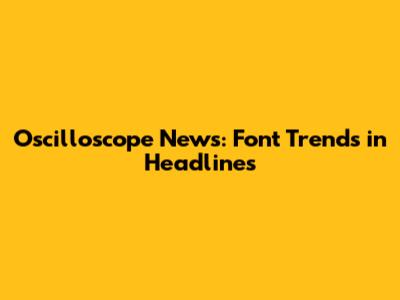
What's the deal with oscilloscope news and their headline fonts, guys? It might seem like a small detail, but the font choices in news headlines can actually make a huge difference in how information is perceived. Think about it – a bold, blocky font screams urgency and importance, while a more elegant, serif font might convey a sense of tradition and reliability. For oscilloscopes, which are technical instruments often discussed in serious scientific or engineering contexts, the font selection is crucial for establishing the right tone. It's not just about looking good; it's about communicating effectively. When you're scanning through headlines, the font is one of the first things your brain registers, subconsciously influencing your perception before you even read the words. This is why major news outlets invest a lot of time and resources into choosing fonts that align with their brand identity and the type of news they deliver. For oscilloscopes, especially in technical publications or industry news, you'll often see fonts that are clean, legible, and convey a sense of precision. We're talking about fonts that don't distract from the core message but rather enhance its impact. It's a subtle art, for sure, but one that plays a significant role in the overall effectiveness of any headline, including those related to the fascinating world of oscilloscopes. Keep an eye out next time you're reading, and you'll start to notice the patterns and the power of a well-chosen font!
The Psychology Behind Headline Fonts
Let's dive deeper into the psychology of why headline fonts matter so much, especially for topics like oscilloscope news. It’s all about how our brains process visual information. Fonts aren't just letters; they're shapes and forms that carry inherent emotional weight and associations. For instance, sans-serif fonts, those without the little decorative strokes (serifs) at the ends of letters, like Arial or Helvetica, are often perceived as modern, clean, and direct. They are fantastic for headlines that need to be read quickly and convey straightforward information, which is often the case with technical news about oscilloscopes. You want clarity, right? You don't want readers squinting or getting confused. On the other hand, serif fonts, like Times New Roman or Georgia, have those little feet and decorative elements. These tend to feel more traditional, authoritative, and sometimes even a bit more sophisticated. While less common for breaking news headlines about oscilloscopes, they might appear in more in-depth feature articles discussing the history or evolution of oscilloscope technology. Then there are display fonts, which are designed to be eye-catching and often have a lot of personality. These are rarely used for serious news unless it's a special feature or a more visually driven publication. The weight of a font – whether it's light, regular, bold, or black – also plays a massive role. Bold fonts scream 'read me!' and are excellent for grabbing attention in a crowded news feed. For oscilloscope news, a bold sans-serif font is often a winning combination, ensuring that crucial updates or announcements about new models, features, or industry trends don't get missed. It's like the font is shouting the headline's importance, making sure it cuts through the noise. So, next time you see a headline, pay attention to the font; it’s working hard to tell you something before you even start reading.
Common Font Styles in Technical News
When we talk about oscilloscope news headlines, we're usually looking at a specific set of font characteristics that prioritize clarity, readability, and a sense of technological advancement. Think about the typical reader of oscilloscope news – they're likely engineers, technicians, scientists, or students in related fields. These individuals value precision and efficiency. Therefore, the fonts used in headlines aimed at them need to reflect these qualities. You'll frequently see clean, geometric sans-serif fonts taking center stage. Fonts like Montserrat, Lato, Open Sans, or even industry-standard choices like Roboto are very popular. They offer excellent legibility across various screen sizes and resolutions, which is super important in today's digital-first news environment. The goal is to make the headline instantly understandable, even at a glance. Bold weights are almost a given for headlines, as they create visual hierarchy and draw the reader's eye. A headline that says "New High-Frequency Oscilloscope Launched" in a bold, clean font is far more impactful than the same words in a lighter, less assertive typeface. Sometimes, you might also see condensed versions of these sans-serif fonts. These are great for fitting more information into a limited headline space without sacrificing readability, which can be a lifesaver in tight layouts or on mobile devices. The overall aesthetic tends to be modern, functional, and unobtrusive. It’s about getting the information across clearly and professionally. It’s not about flashy or overly decorative fonts that might detract from the technical nature of the subject matter. The font itself becomes a part of the message, reinforcing the idea of accuracy and cutting-edge technology associated with oscilloscopes. So, when you’re browsing technical news sites, notice these subtle but powerful design choices in their headlines.
The Evolution of Headline Typography
It's fascinating to think about how headline typography, including for niche areas like oscilloscope news, has evolved over time, guys. Remember those old newspapers? Headlines were often set in very bold, sometimes even condensed, serif fonts. They had a certain gravitas, a feeling of authority and importance that was perfect for the printed page. As technology advanced and we moved into the digital age, particularly with the rise of the internet and mobile devices, the demands on typography changed dramatically. Readability on screens became paramount. This is where sans-serif fonts really started to shine. Their clean lines and lack of serifs make them much easier to render clearly on lower-resolution screens. Think about the early days of websites – many used very basic, system-default sans-serif fonts. Over time, as screen technology improved and web fonts became more sophisticated, designers had a much wider palette to play with. For technical news sites covering oscilloscopes, this shift meant embracing fonts that felt both modern and trustworthy. We saw a move away from overly decorative or complex fonts towards simpler, more functional designs that prioritize clear communication. The advent of responsive design also played a huge role. Headlines need to look good and be readable whether you're on a massive desktop monitor or a tiny smartphone screen. This necessitates fonts that scale well and maintain their integrity across different sizes and resolutions. Today, the trend is often towards minimalist design, and that extends to typography. Clean, well-spaced sans-serif fonts, often in bold weights, are the go-to for many news outlets, including those in specialized fields. The goal is to create a sleek, professional look that doesn't overwhelm the reader but instead guides their attention effectively to the most important information. It’s a constant dance between aesthetics, functionality, and the evolving ways we consume news, and it’s super interesting to watch unfold.
Factors Influencing Font Choice for Oscilloscope News
Several key factors influence the specific font choices you'll see in oscilloscope news headlines, and it's not just about picking something that looks cool, believe me. Firstly, Target Audience is huge. As we've touched on, the readers of oscilloscope news are typically professionals or students in technical fields. They appreciate clarity, precision, and efficiency. Fonts that are overly stylized, whimsical, or difficult to read quickly would be a mismatch. Therefore, clean, legible sans-serif fonts are almost always the default. Secondly, Platform and Medium matter a lot. Is the news appearing on a website, in a print magazine, or on a mobile app? Websites and apps demand highly readable fonts that render well on screens of all sizes. Print might allow for slightly more stylistic freedom, but legibility remains king. The need for responsive design in the digital realm strongly favors versatile sans-serifs that maintain their clarity whether they're large on a desktop or small on a phone. Thirdly, Brand Identity is critical for any publication. Does the news source want to project an image of being cutting-edge and innovative, or traditional and authoritative? A bold, modern sans-serif might suit the former, while a slightly more classic, perhaps heavier, font could lean towards the latter. However, for technical subjects like oscilloscopes, the emphasis is usually on modernity and reliability, aligning well with the characteristics of many sans-serif families. Fourthly, Content Context is also a consideration. Is the headline announcing a breakthrough in oscilloscope technology, a product review, or a market analysis? The perceived urgency or importance of the content can subtly influence the font weight or style chosen. A bold, impactful font might be used for a major product launch, whereas a slightly more subdued, though still clear, font might be used for a detailed technical explanation. Finally, Readability and Accessibility are non-negotiable. The primary goal of a headline is to be read and understood quickly. This means avoiding fonts that are too thin, too ornate, or have letterforms that are easily confused (like 'I' and 'l' in some fonts). High contrast between the text and background is also essential. All these elements combine to create a typographic landscape for oscilloscope news that prioritizes function, clarity, and a professional, modern feel. It's a carefully curated selection, not an accident!
The Impact of Fonts on Reader Perception
Let's get real, guys – the font used in a headline about oscilloscopes can seriously influence how a reader perceives the information, even if they don't consciously realize it. It’s all about visual cues and psychological associations. Think about it: a headline set in a sharp, angular font might unconsciously suggest precision and advanced technology, which is perfect for a cutting-edge oscilloscope. Conversely, a soft, rounded font might feel more approachable but less authoritative in a technical context. For news related to oscilloscopes, which are precision instruments used in demanding fields like engineering and scientific research, the font choice needs to align with perceptions of accuracy, reliability, and innovation. If a news outlet uses a font that feels outdated or unprofessional for an oscilloscope-related headline, readers might subconsciously question the credibility or significance of the news itself. This is why major tech publications and industry news sources tend to stick to a relatively consistent typographic style that conveys seriousness and expertise. A bold, clean sans-serif font, for example, communicates directness and importance. It grabs attention without being distracting and suggests that the information within is significant and worth their time. The spacing between letters (kerning) and lines (leading) also contributes to this. Well-executed typography makes content feel polished and professional, enhancing the reader's trust in the source. Poor typography, on the other hand, can make even the most groundbreaking news seem amateurish or difficult to engage with. It’s like wearing a suit to a formal event versus wearing flip-flops – the attire sets a certain expectation. In the world of news, the font is the attire for the words, and for technical subjects like oscilloscopes, it needs to convey competence and relevance. So, the next time you see a headline, take a moment to appreciate the subtle but powerful work the font is doing in shaping your perception of the story.